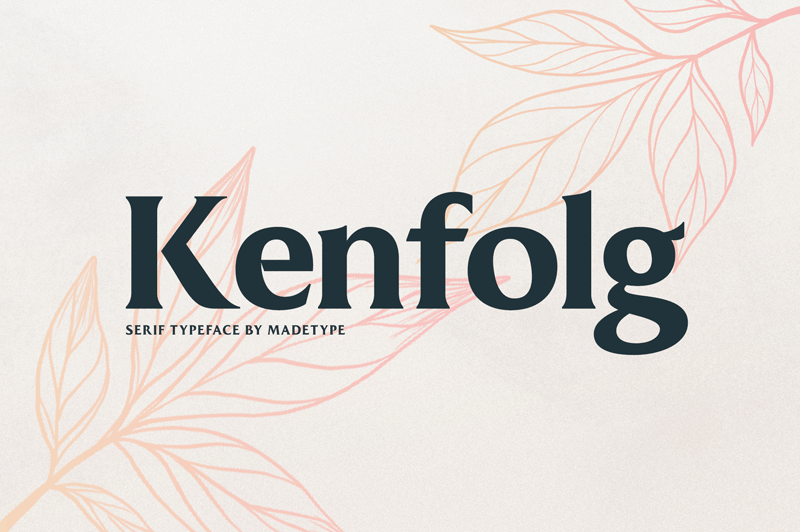
Font name: | MADE Kenfolg |
Author: | MADE Type |
MADE Kenfolg is a display titling serif typeface. The Kenfolg serif font will perfect for many project: book, magazines, logo, branding, photography, quotes, blog header, poster, advertisements, etc. Font is FREE for PERSONAL USE. Contact me mail for commercial use and questions: Madetypeinfo@gmail.com ----- FOR PERSONAL AND COMMERCIAL WORK https://www.fontspring.com/fonts/madetype https://creativemarket.com/MadeType https://thehungryjpeg.com/madetype https://www.youworkforthem.com/designer/1002/madetype/ ----- https://www.behance.net/madetype Email for questions: Madetypeinfo@gmail.com |